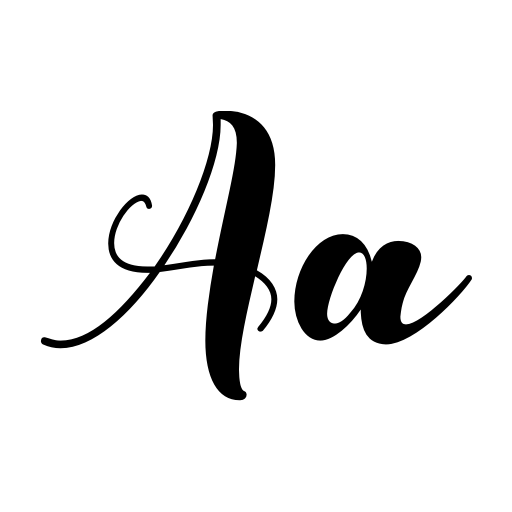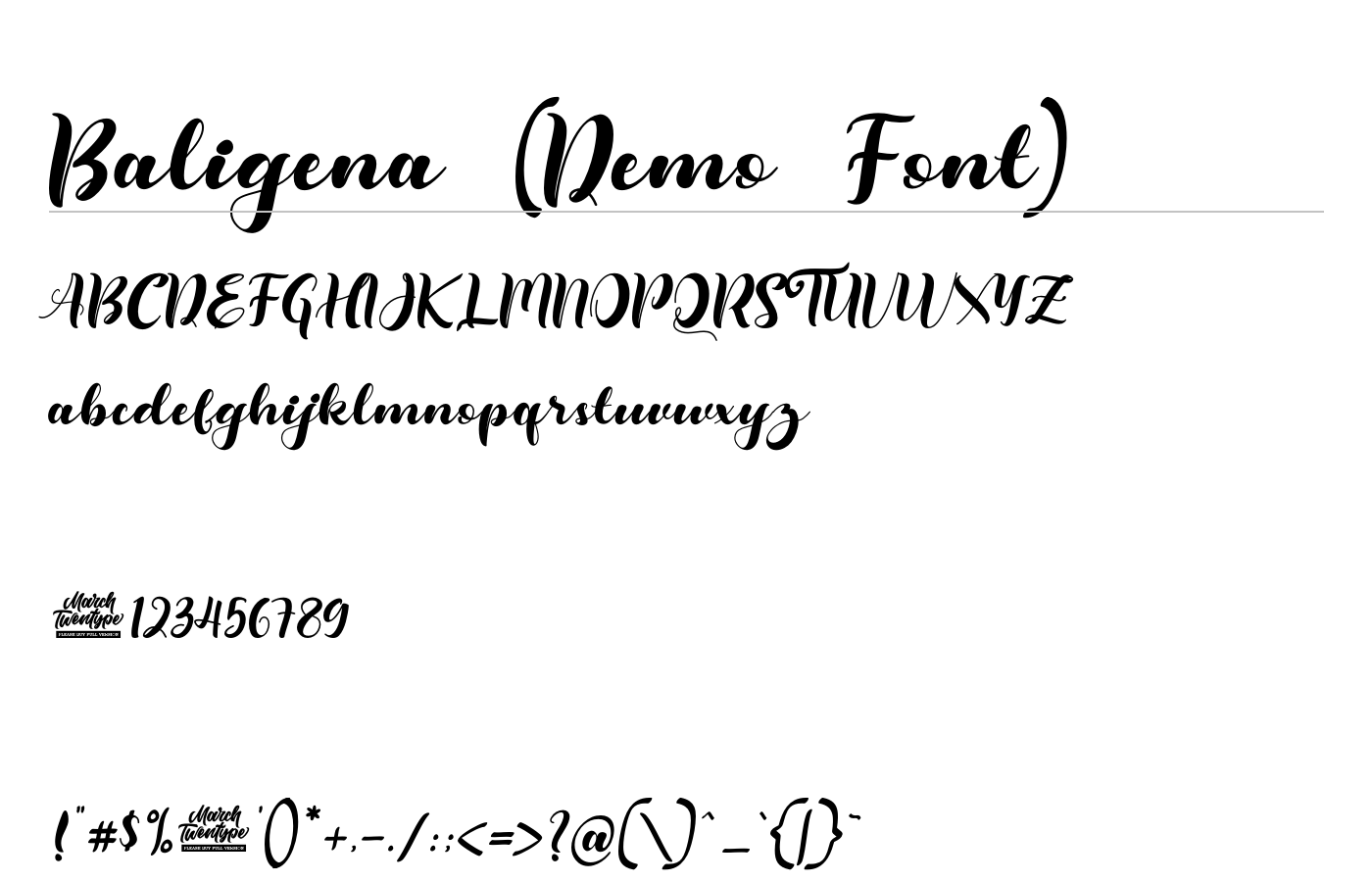
Baligena is a stylish, script-style font with a lively, handwritten feel marked by its smooth, flowing strokes and distinct contrast between thick and thin lines. Its elegant yet casual character makes it perfect for branding, invitations, and creative projects that need a personal, artistic touch. This font works well in headlines and logos where expressive, eye-catching lettering is desired.